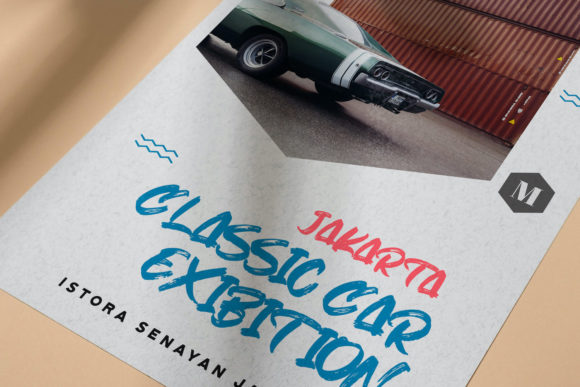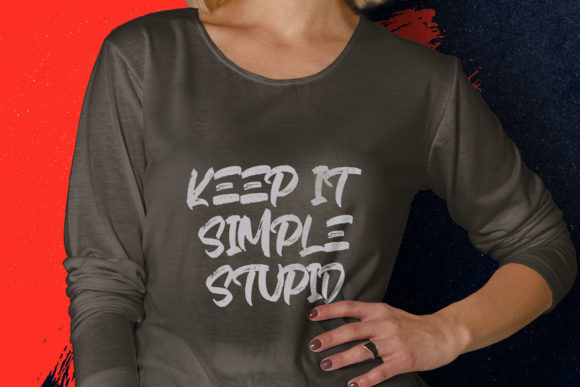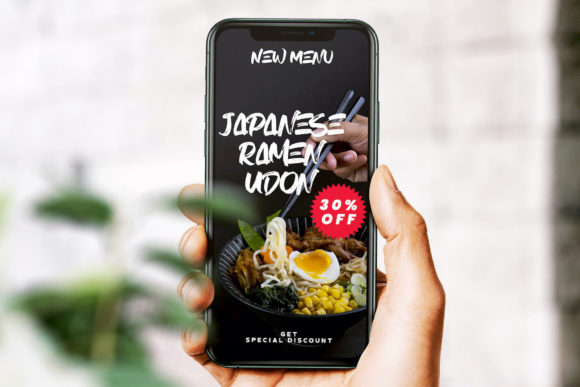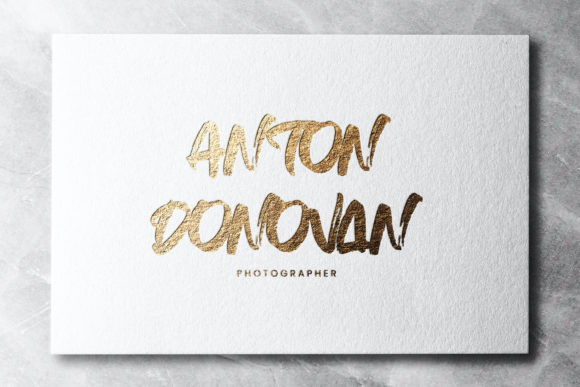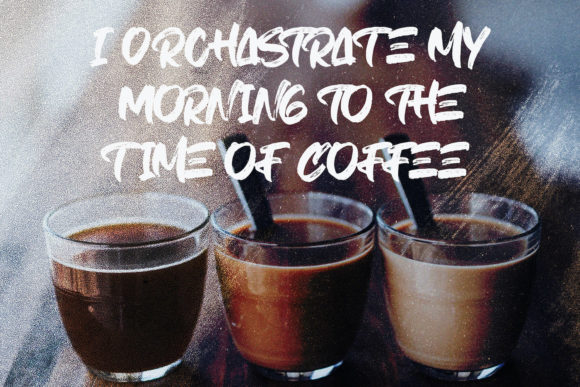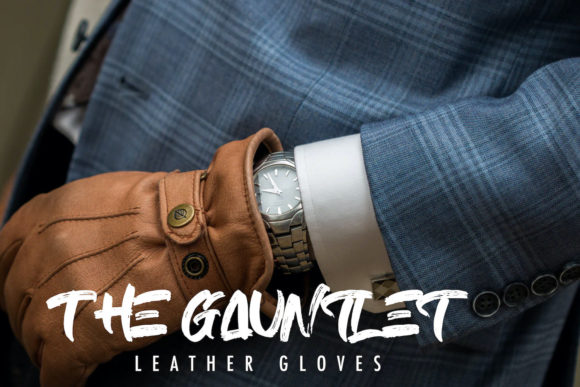
Introduction to Hiruzen Exist Font
Hiruzen Exists is a cool, brushed display font.
This original and bold look will appeal to a wide range of crafty ideas, from letterheads and titles, to stationery .
Key Features of Hiruzen Exist Font
Why Choose Hiruzen Exist Font?